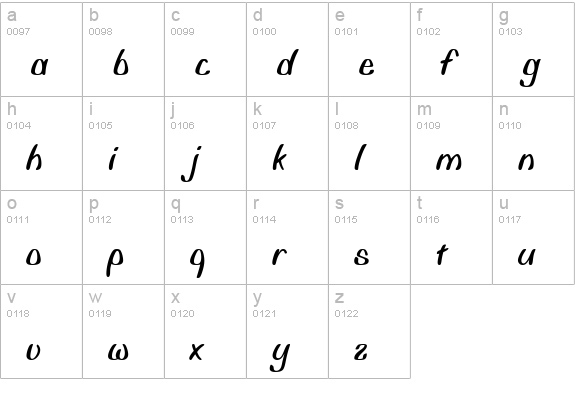
Bonita-Regular is the standard, neutral variant in the Bonita typeface family \xE2\x80\x94 well suited to general body text, paragraphs, and standard typographic work.
Bonita-Regular is a charming and elegant font that exudes a sense of warmth and friendliness. Its smooth curves and balanced proportions make it perfect for a variety of design projects, from invitations to branding materials. The soft and approachable appearance of Bonita-Regular makes it a versatile choice for both digital and print applications. Best of all, Bonita-Regular is available for free download at FontsMarket.com. This means that you can easily access and use this beautiful font in your projects without any cost. Whether you are a designer looking for a new typeface to add to your collection or a business owner in need of a fresh look for your branding, Bonita-Regular is a fantastic choice that won't break the bank. Download it today and add a touch of elegance to your designs!